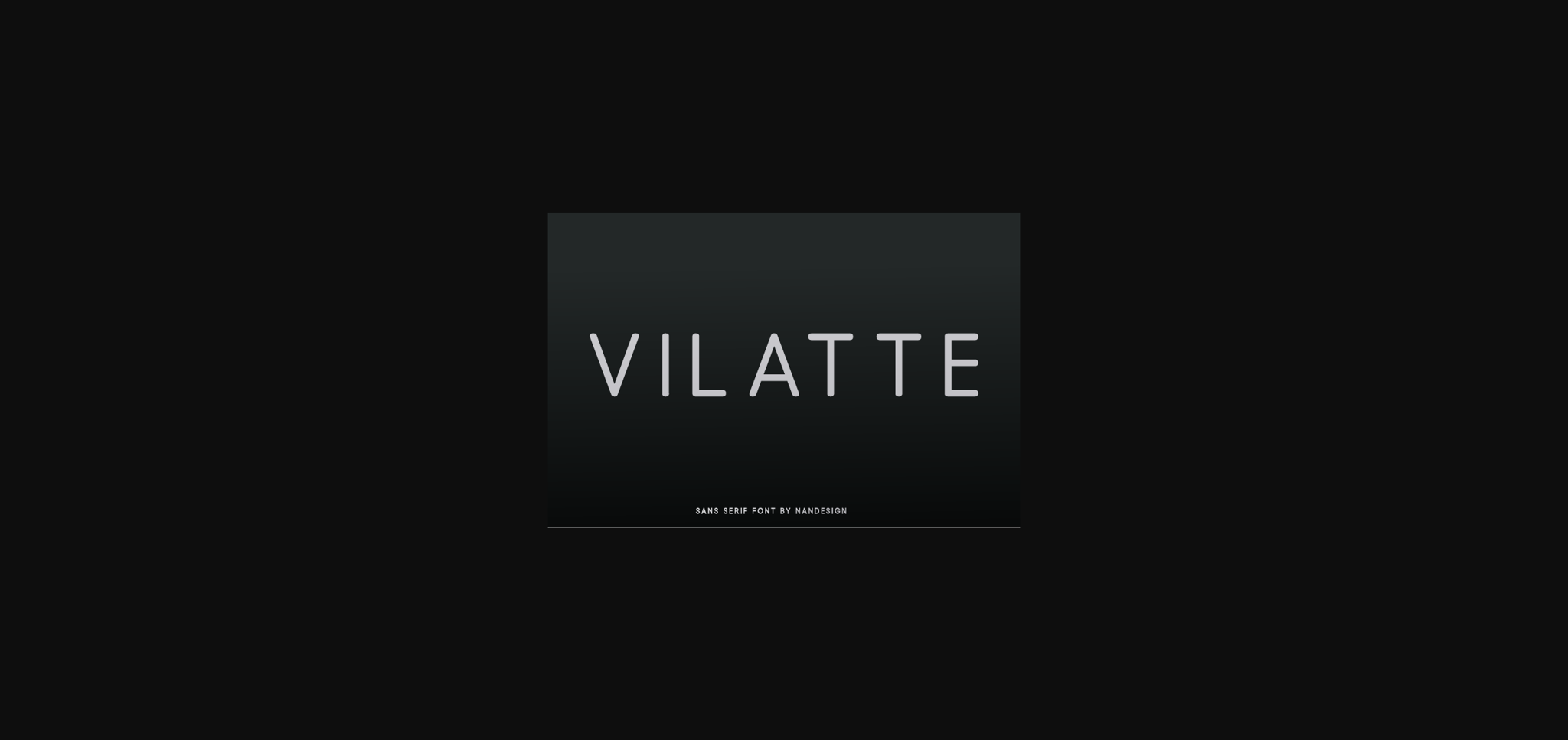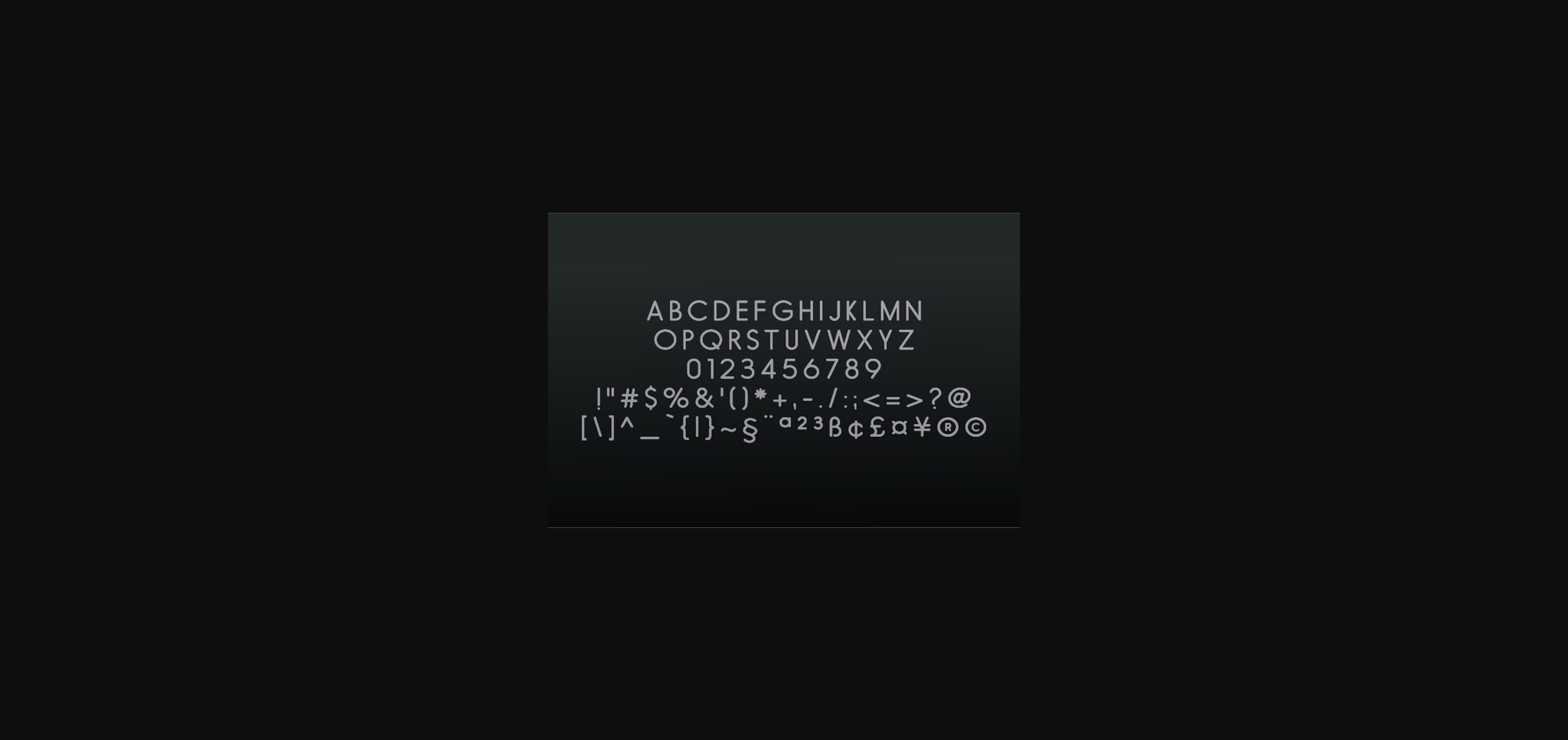
Vilatte Font
About Vilatte Font
Vilatte is a simple, elegant sans serif font. It will elevate a wide range of design projects to the highest level, be it branding, headings, wedding designs, invitations, signatures, logos, labels, and much more! Use Vilatte to achieve an exquisite, yet subtle look and maximum versatility.